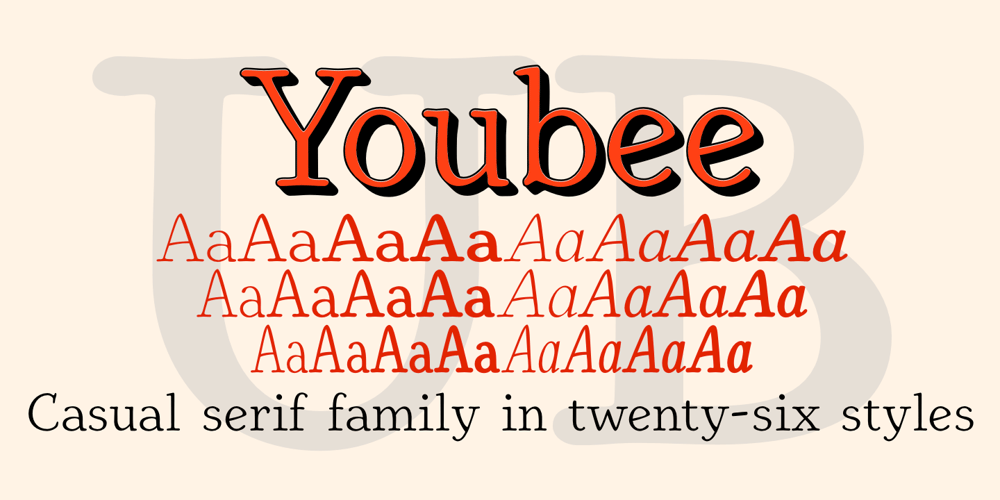
Youbee Font Family was designed by Robert Schenk and published by Ingrimayne Type. Youbee contains 26 styles and family package options. Youbee is a casual serifed font that is highly legible. It has a bit of contrast, but not much. It could be used as book text, but is better suited for less formal uses such as newsletters and pamphlets.Youbee gets its name from it origin, the Ultimate Blend (UB) of four very different typefaces: Euroika, Ingriana, BetterTypeRight, and KampFriendship. The earliest members of the family were constructed in 1996, with a shadow version added in 2011, extra weights in 1999, and two different widths in 2022.